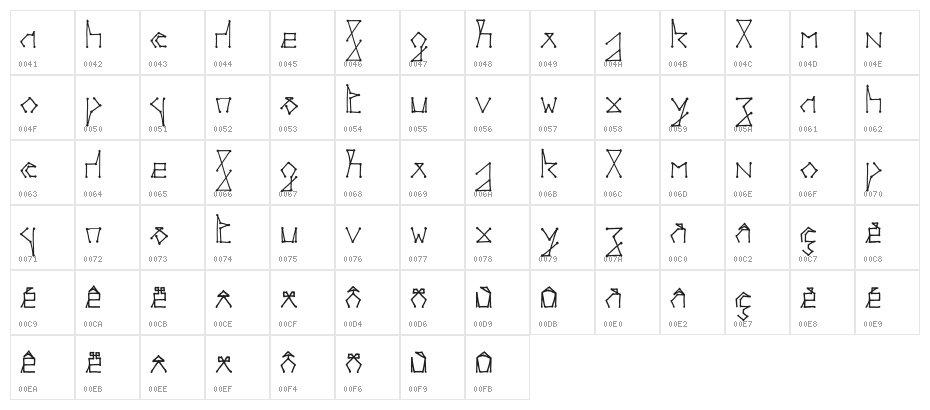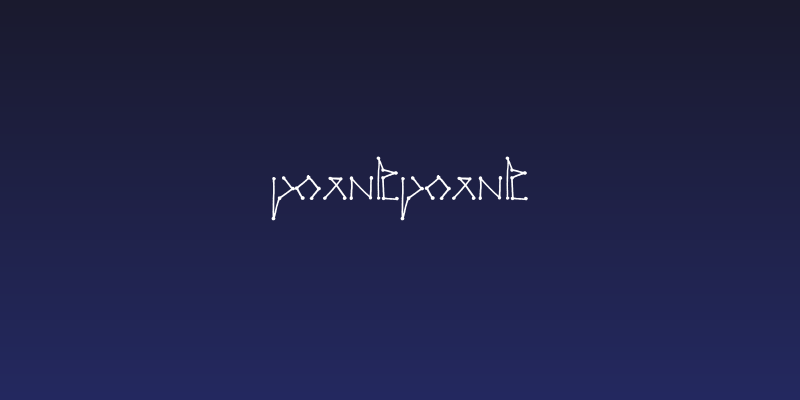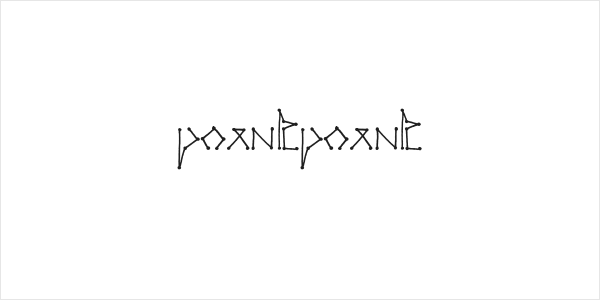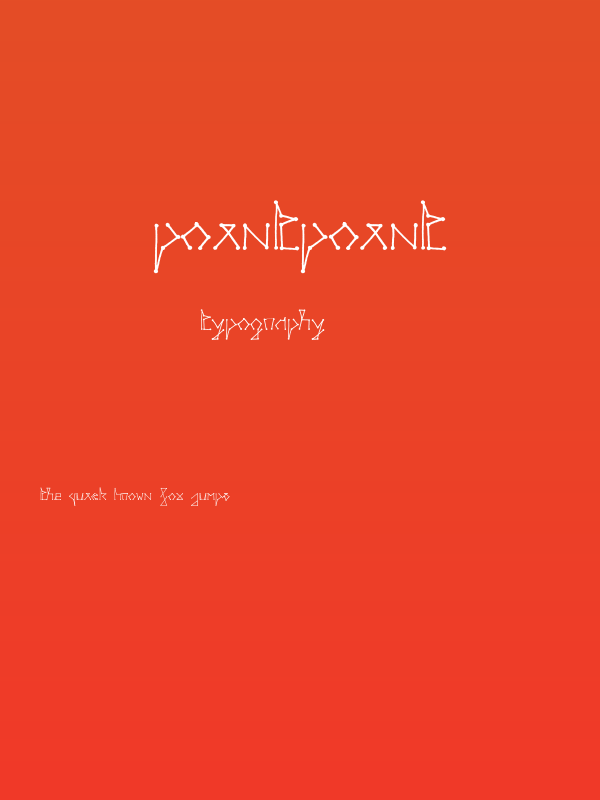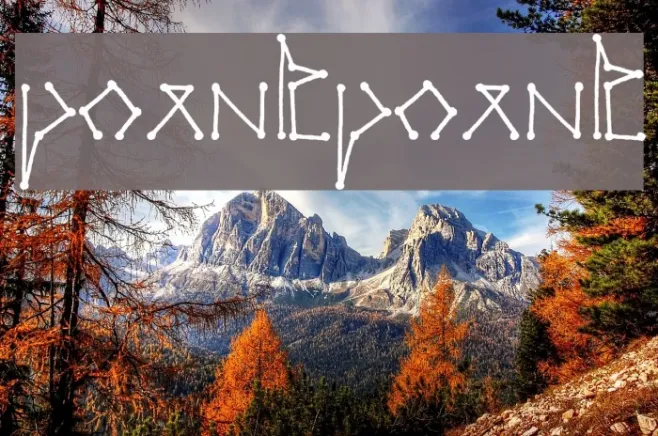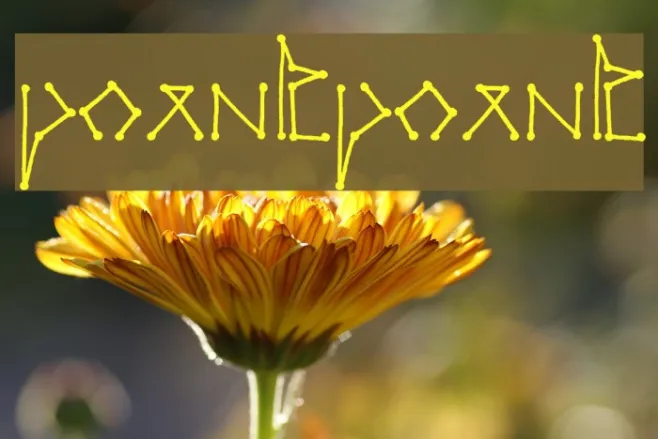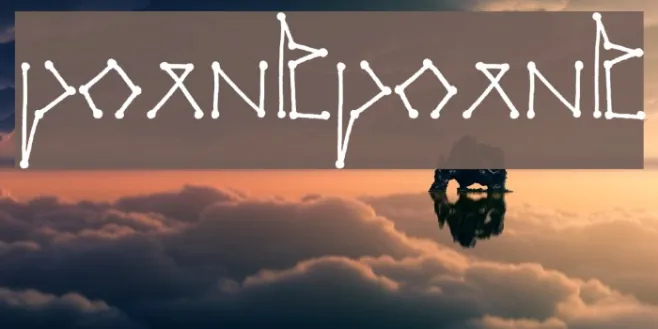
pointpoint Font
pointpoint Description
This font features a unique, abstract design with characters composed of lines and dots, resembling a geometric or symbolic script. The letters are formed with angular strokes and connected dots, giving it a cryptic and artistic appearance. The uppercase and lowercase letters share a similar style, maintaining consistency throughout the alphabet. Numbers and special characters are also designed in this distinctive manner, enhancing the font's cohesive look. The overall aesthetic is reminiscent of ancient scripts or coded languages, making it suitable for creative and thematic projects.
| Use Case | Logos, Posters, Artistic Designs |
| Proposed Projects | Ideal for artistic projects, themed designs, or creating a mysterious, coded aesthetic in visual media. |